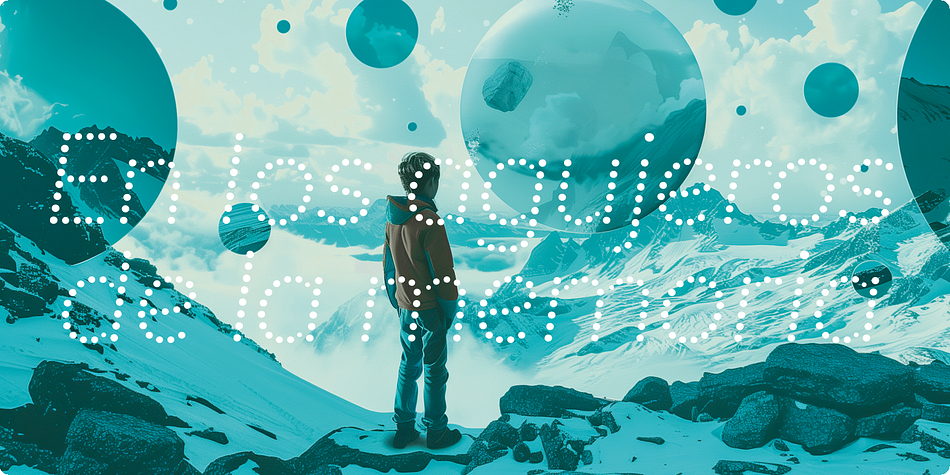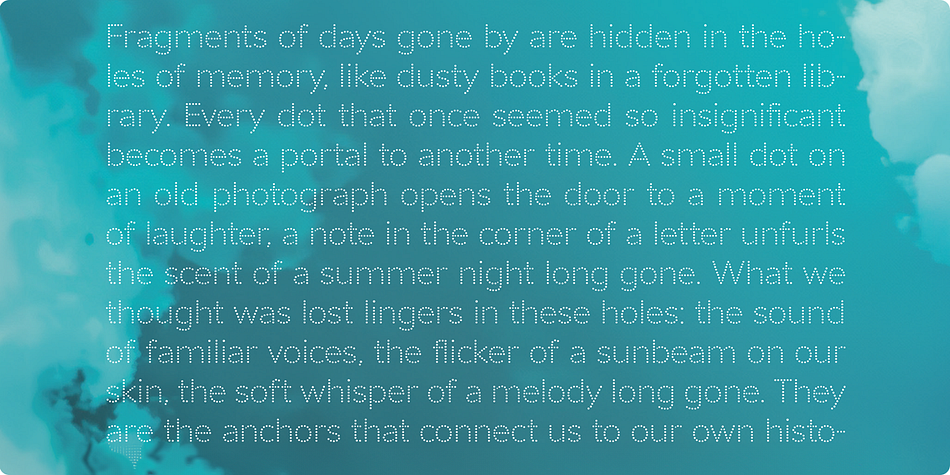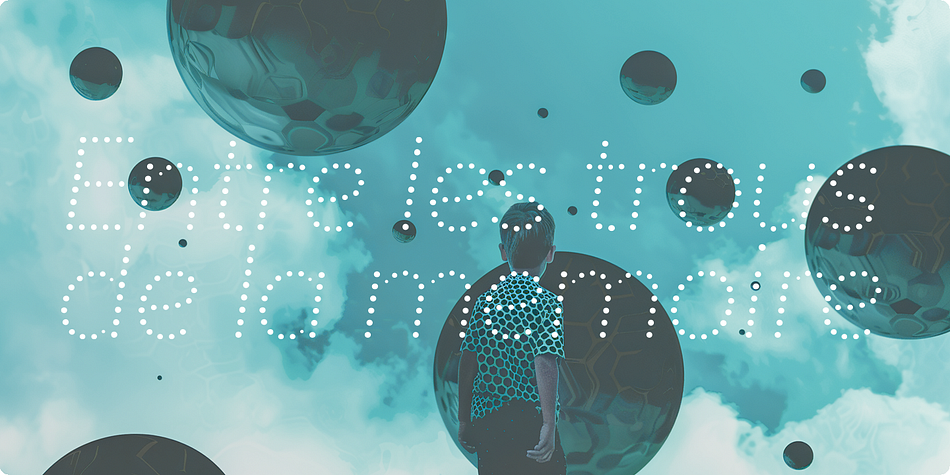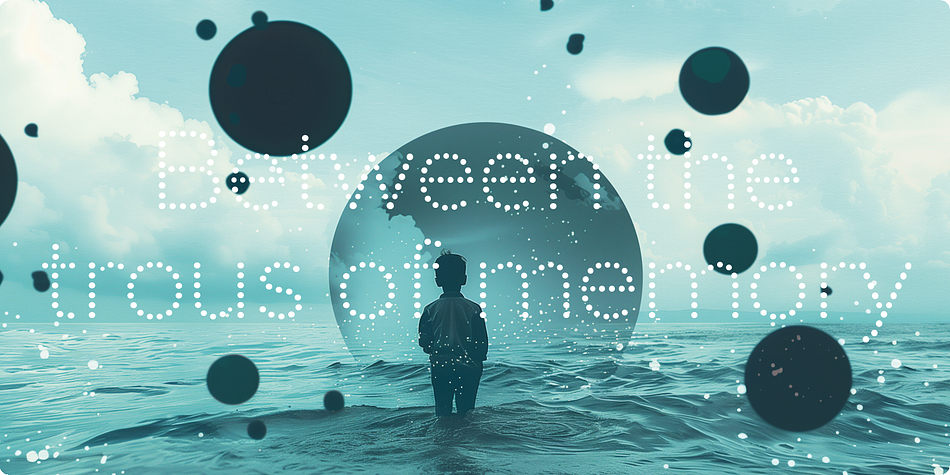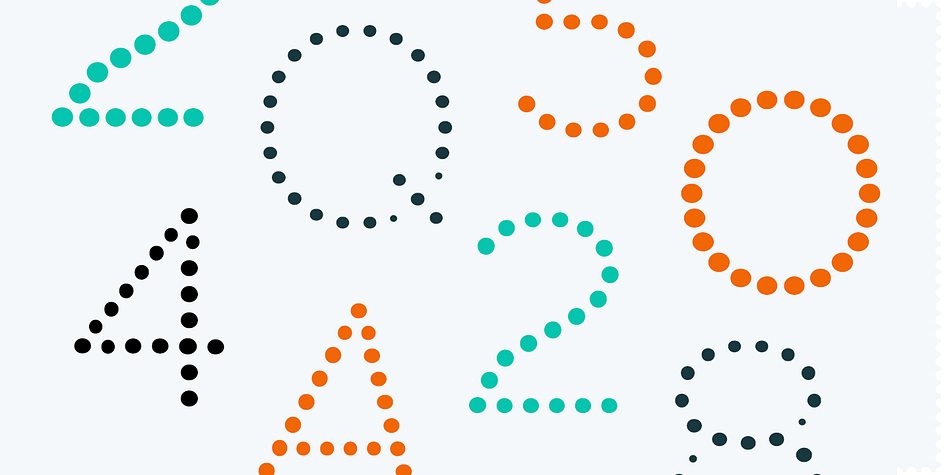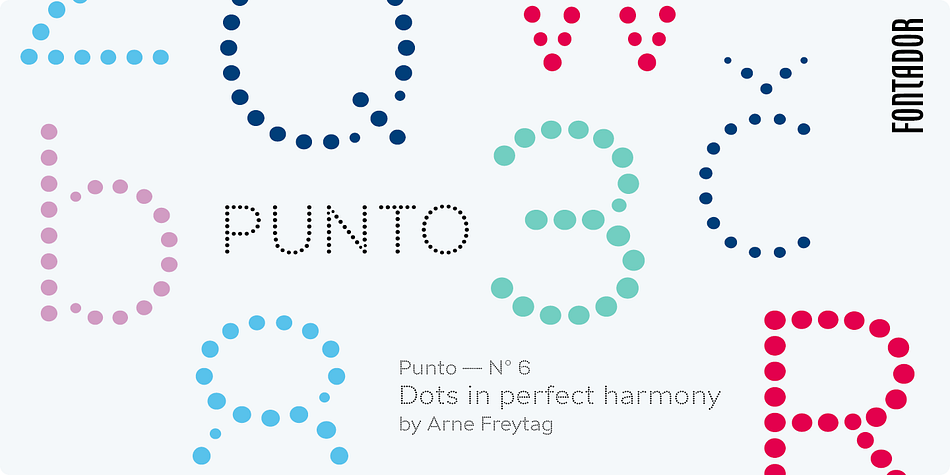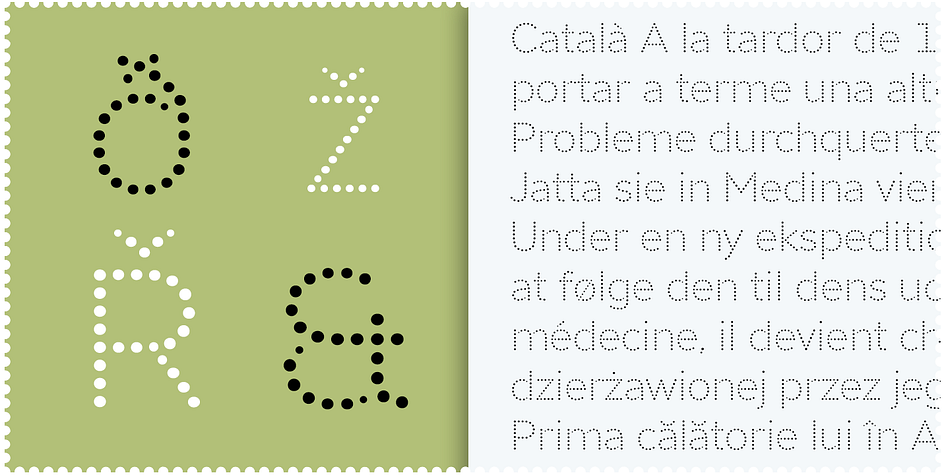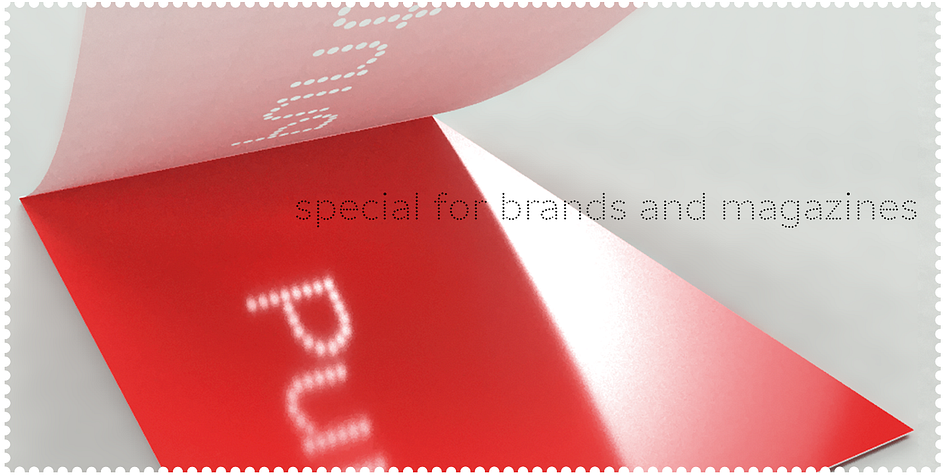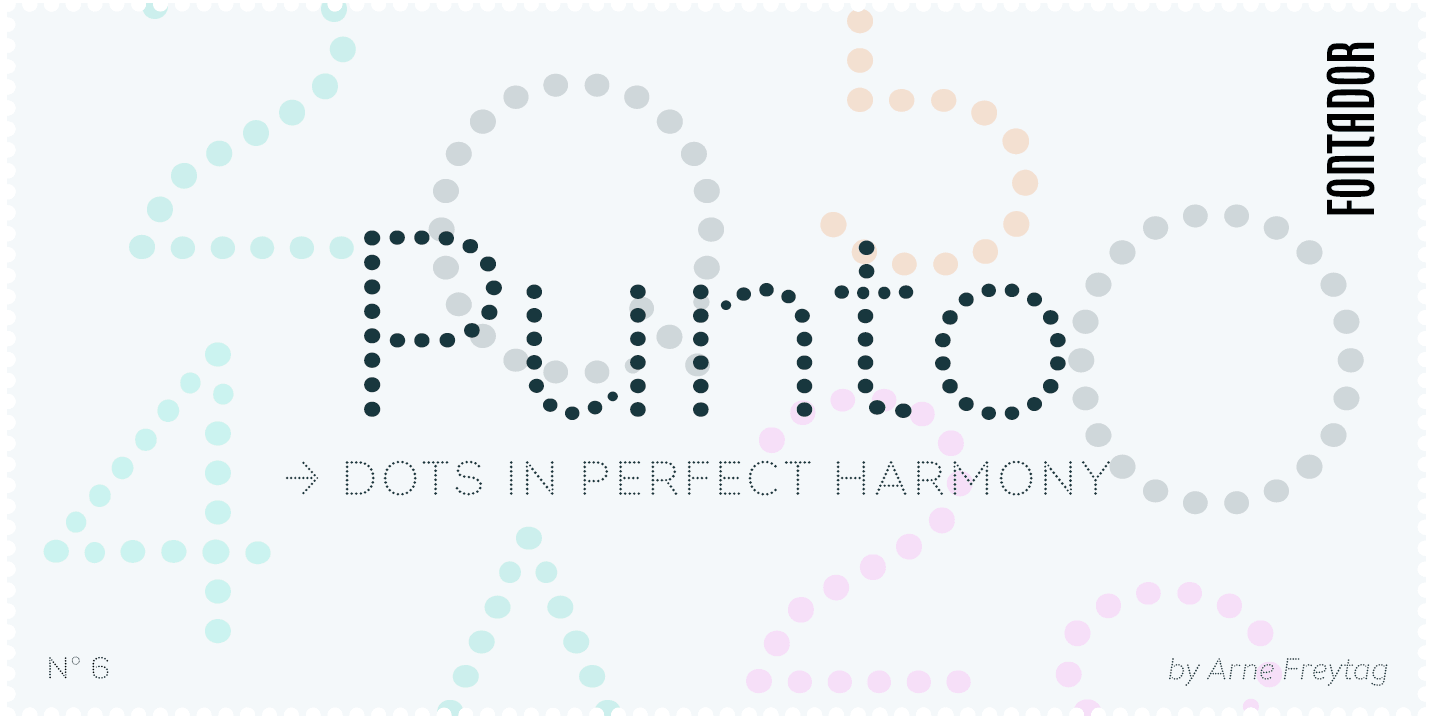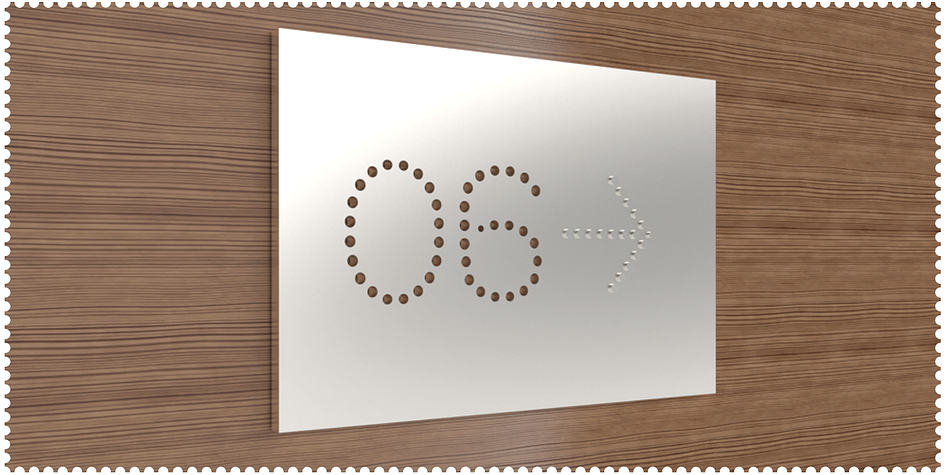
Designed by Arne Freytag, Punto is a display sans and pixel font family. This typeface has six styles and was published by Fontador.
Punto is not made up of grid-based dots. They are optical corrected and there is always the same distance between the dots, with the aim to create more harmonic letterforms.
The dots also vary gradually in size to reflect the thickening and thinning of strokes, giving the letterforms a sophisticated overall look.
Punto comes up with 3 weights and 3 italics and is perfectly suited for logos, brands, magazines and special for signage systems and mobile devices.
The language support includes Western, Central and Eastern European character sets, as well as Baltic and Turkish languages.
The little sister of Punto is Punto Poly: A layered type system for cromatic typesetting.